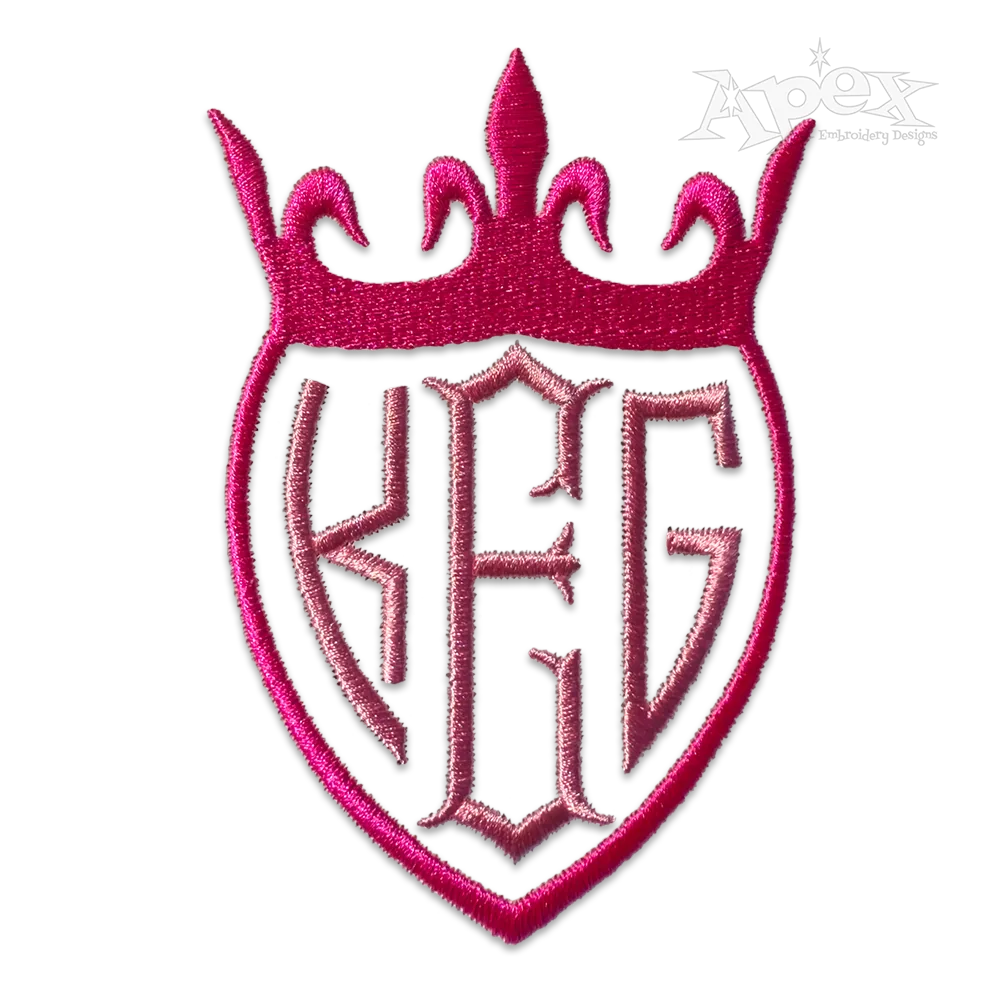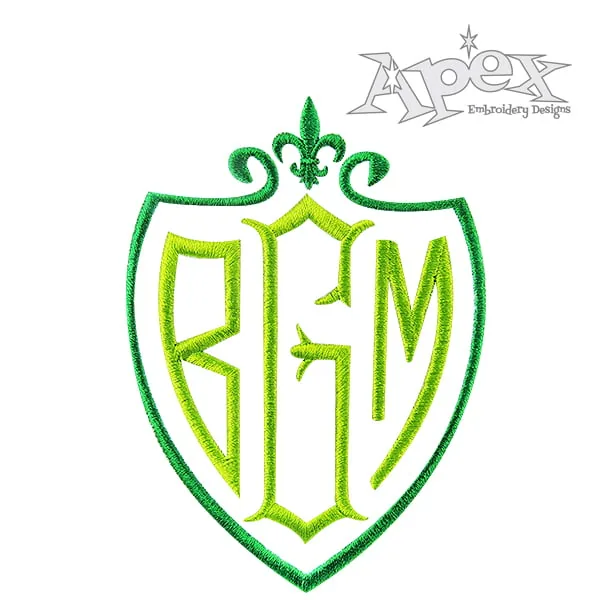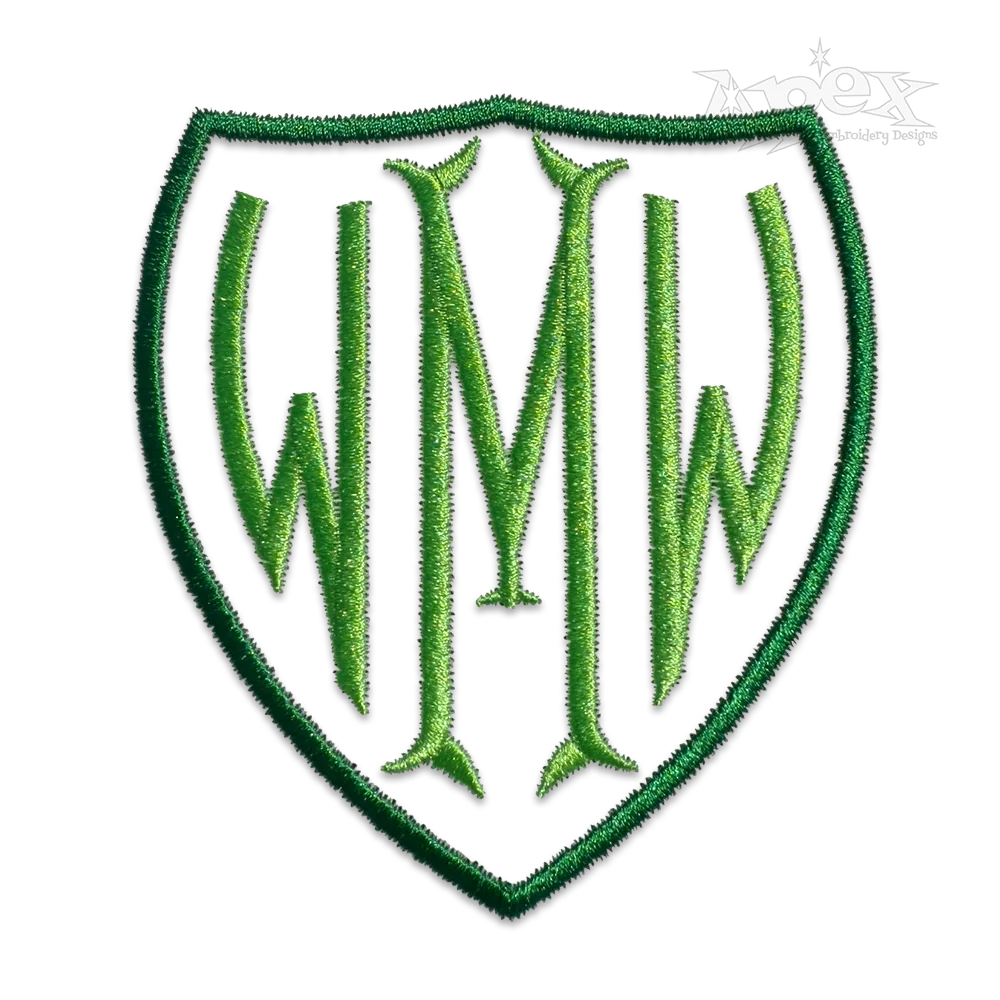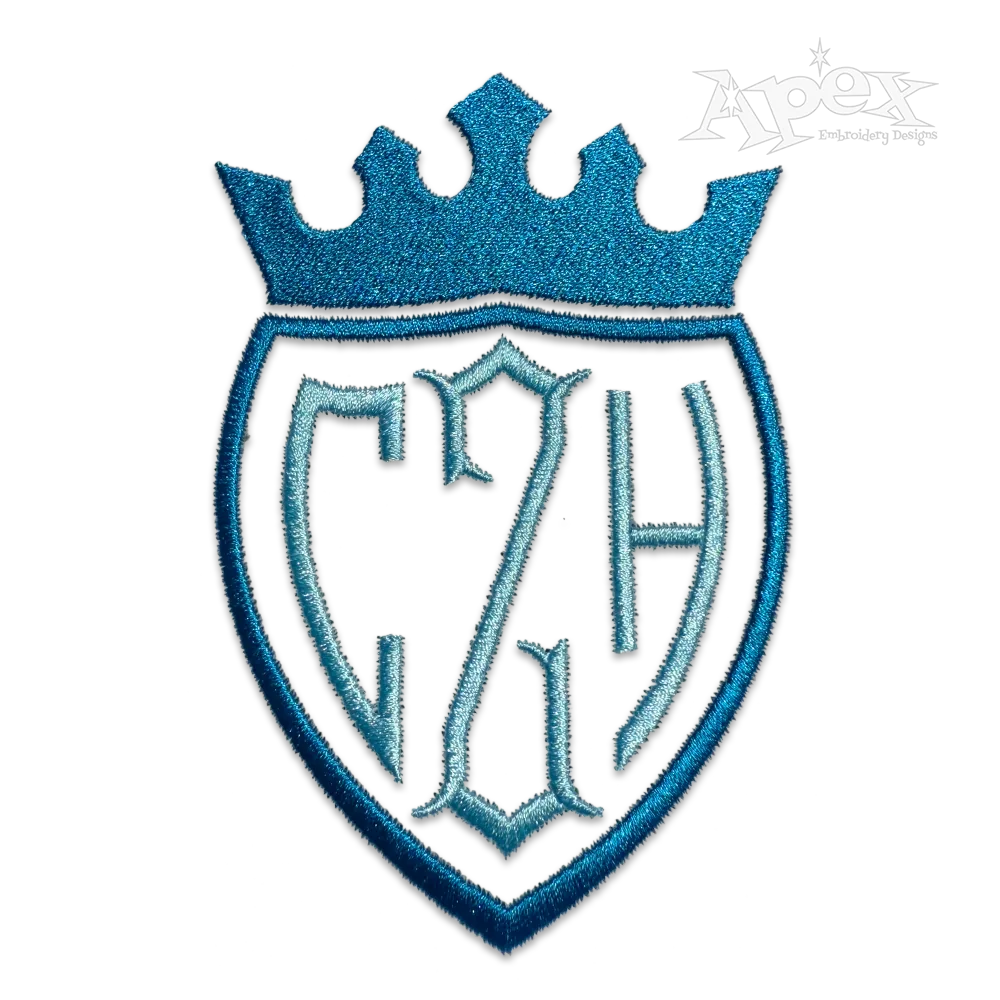
Shield Monogram Embroidery Font
There is an enduring dignity in classical heraldic design?the quiet authority of an ancestral crest gracing tailored suiting or hand-loomed table linen. When drafting the Shield Monogram Embroidery Font, we looked to the timeless proportions of European armorial signets and vintage collegiate emblems. Designed to transform standard three-letter monograms into aristocratic personal insignias, this collection brings bespoke refinement to modern needlework. Every curve and angled point has been meticulously drafted so that light glides across dense, fluid satin columns, infusing your personalized gifting and heirloom embroidery with an unmistakable aura of legacy.
This comprehensive collection provides the complete 3-letter monogram alphabet across three distinct, proportional scales, paired with 9 harmonizing shield-shaped frames designed to effortlessly house your initials:
• 9 Shield-Shaped Frames: A curated variety of heraldic borders ranging from minimalist satin borders to regal scrolled crests.
Project Ideas for Shield Monogram Embroidery Font
The timeless architectural silhouette of the shield monogram makes it wonderfully adaptable across both traditional and contemporary textile projects:
Shield Monogram Embroidery Font Craft & Letterform Details
Monogram geometry requires extraordinary digitizing precision. Unlike standard typography, a three-letter monogram relies on precise optical harmony: the side initials must seamlessly echo the inward contour of the shield frame, while the dominant center surname initial establishes commanding height. We digitized each letterform with micro-calibrated pull compensation and adaptive stitch angles, ensuring that satin stitches turn naturally around tight radii without bunching or thinning. The accompanying frames feature tailored underlay stitching designed to stabilize the fabric grain, preventing puckering and guaranteeing crisp, laser-sharp corners at the shield's lower apex. The result is a luminous, high-density satin stitch alphabet that stitches with silky consistency and endures through generations of wash and wear.